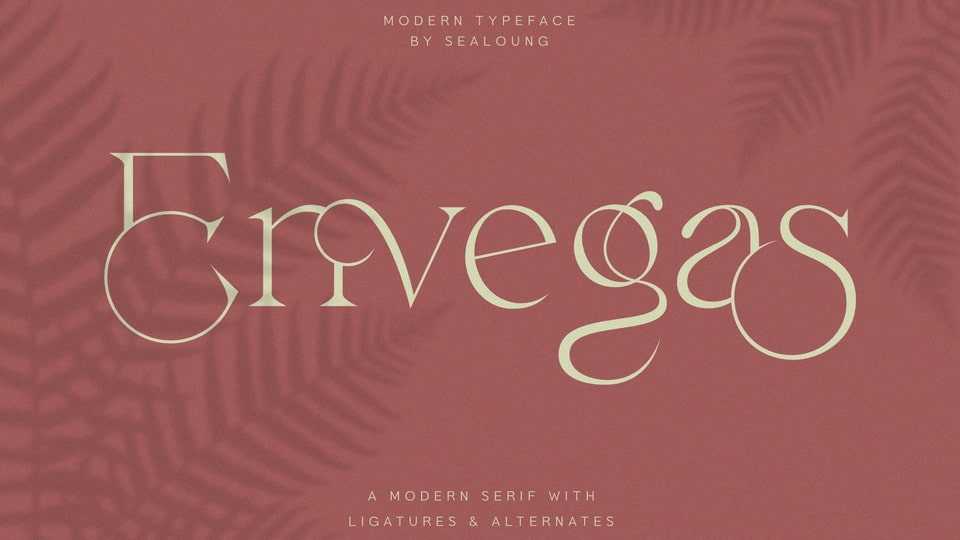
Download Envegas font, a modern serif typeface. Its soft curves mixed with high contrast glyphs, give Envegas a feminine and masculine quality.
Designer: Sealoung